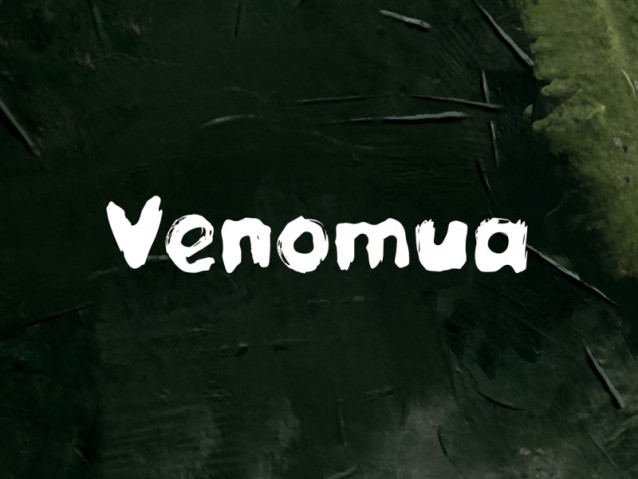
Venomua Font
Venomua Font is a simple and modern display font suitable for quotes, logos, headings, titles, and many more. Use it on any of your creative projects, and your designs will become outstanding!